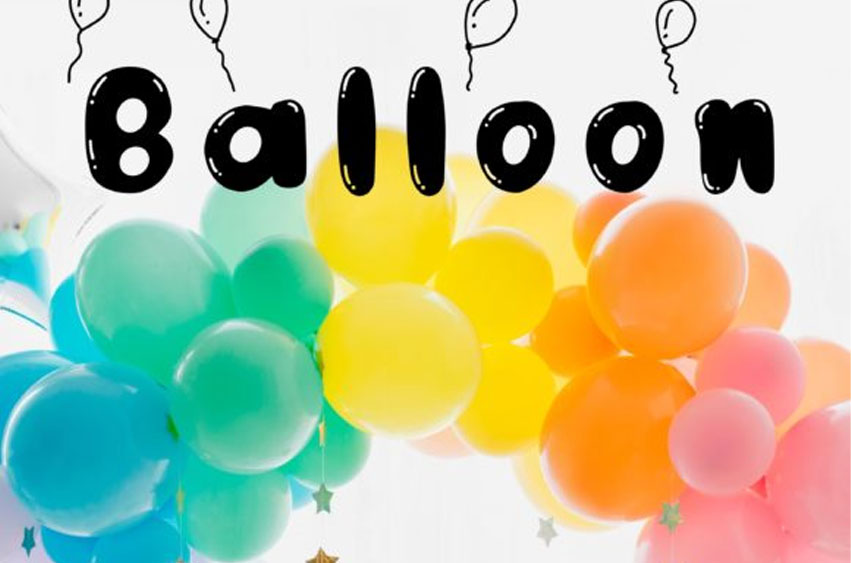
Balloon Display Font
Balloon Display Font is a bubbly and cool display font.
Whether you use it for cartoon-related designs, children’s games, or just any creation that requires a lovely touch, this font will be an amazing choice.